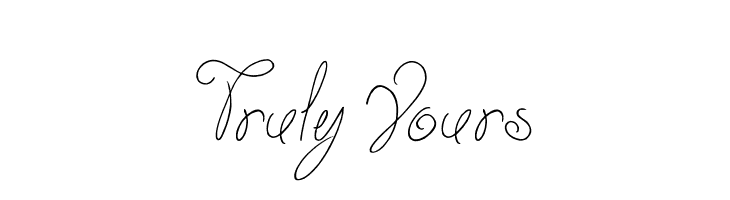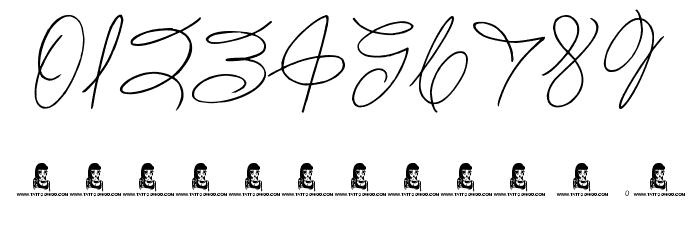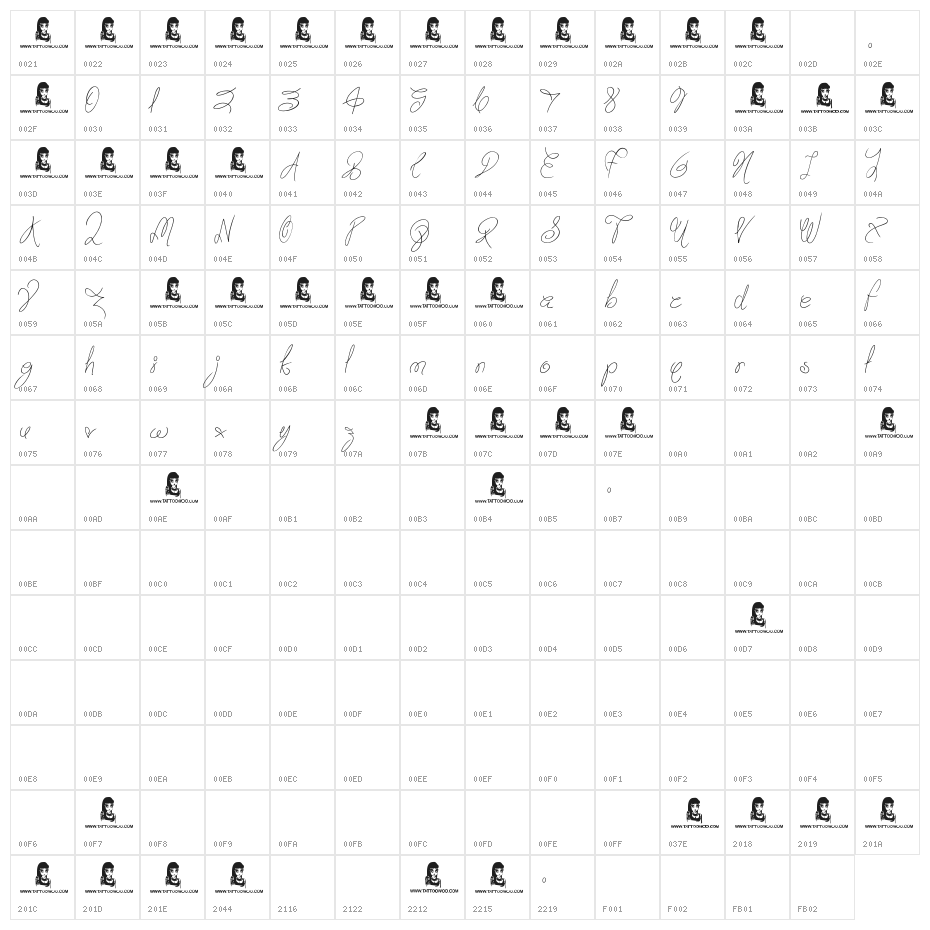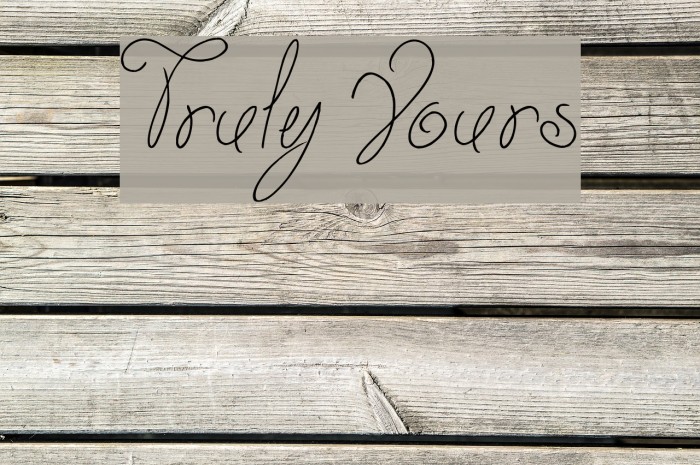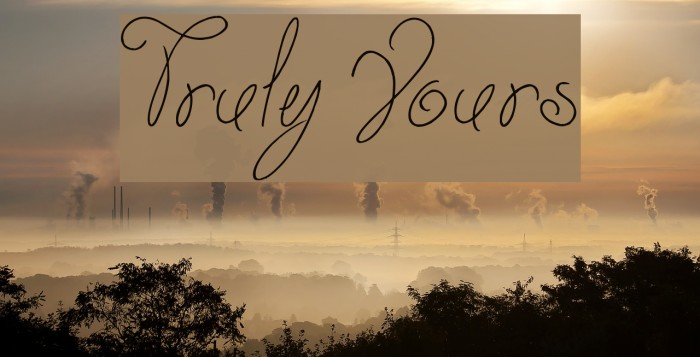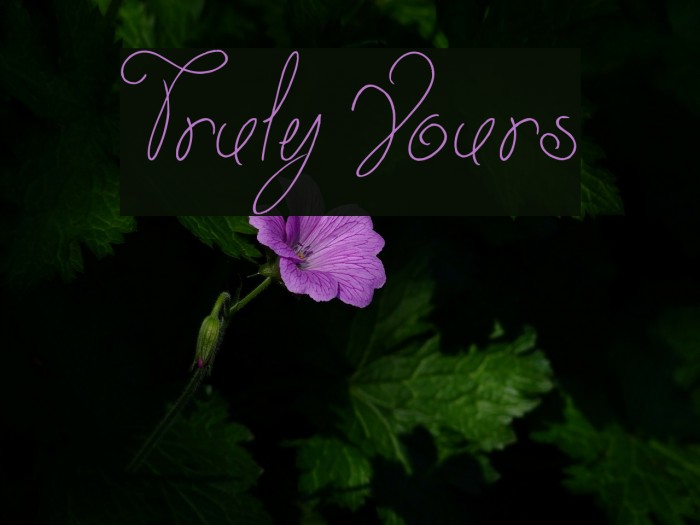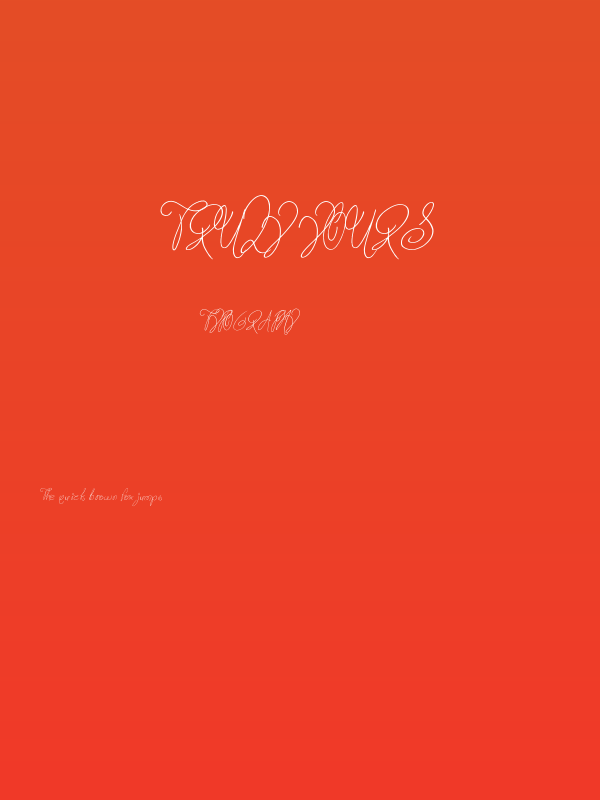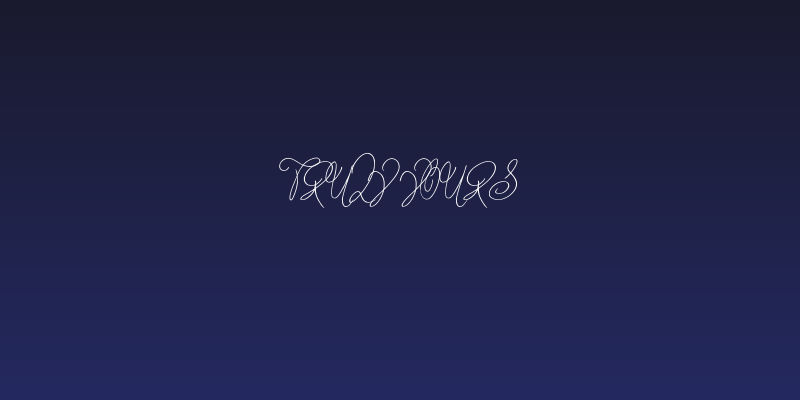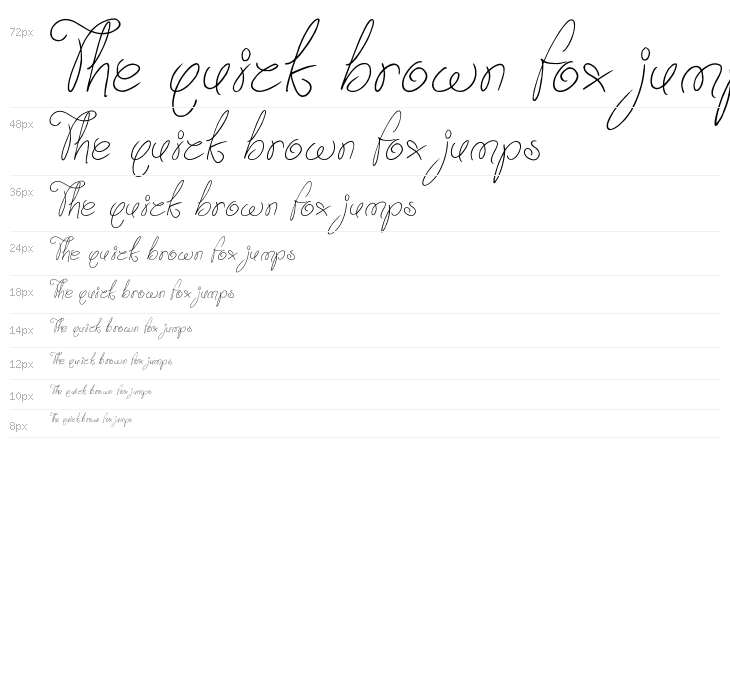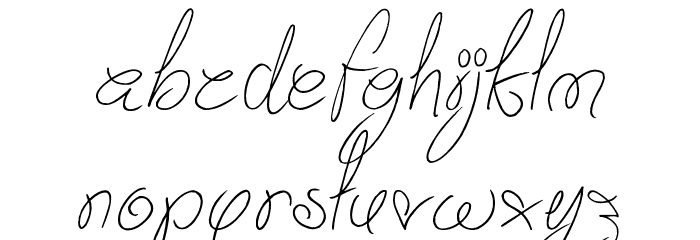
Truly Yours Font
Truly Yours Description
This elegant script font features a fluid and graceful design, reminiscent of traditional calligraphy. The characters are interconnected with smooth, flowing lines, creating a sense of movement and sophistication. The uppercase letters are ornate and decorative, while the lowercase letters maintain a consistent style with slightly less embellishment. The numerals and special characters are designed to match the overall aesthetic, ensuring a cohesive look across all text. This font is perfect for projects that require a touch of elegance and refinement.
| Overall Style | Elegant, Calligraphic |
| Use Case | Headlines, Invitations, Branding |
| Proposed Projects | Ideal for wedding invitations, elegant branding, personal stationery, and decorative headlines. |